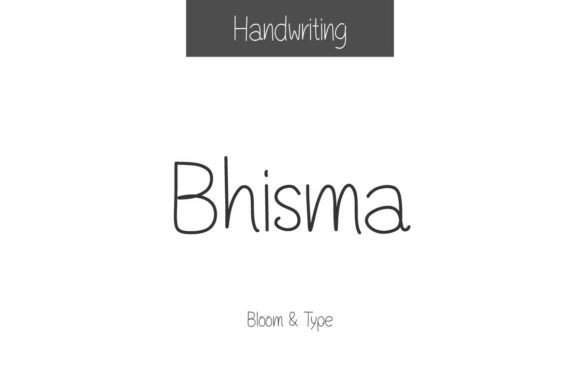
Bhisma Font: A Minimal and Heartfelt Handwritten Font for Creative Projects
Bhisma Font is a beautiful, handmade typeface that embodies simplicity, warmth, and personality. Its unique blend of elegance and relaxation makes it perfect for creative projects that require a touch of sincerity and calmness. In this article, we’ll explore the features and benefits of Bhisma Font, and how it can elevate your design work.
What is Bhisma Font?
Bhisma Font is a minimal and heartfelt handwritten font that boasts a gentle, handmade touch. Its organic and natural flow makes it feel both elegant and relaxed, perfect for designs that require a personal touch. The font’s thin and slightly irregular strokes give it a unique charm, setting it apart from other typefaces.
Key Features of Bhisma Font
- Handwritten with love: Bhisma Font is crafted with care, offering a genuine, handmade feel that’s perfect for designs that require a personal touch.
- Multilingual support: Bhisma Font includes support for Spanish, French, German, Portuguese, and Italian, making it a versatile choice for designers worldwide.
- Thin and irregular strokes: The font’s unique strokes give it a distinctive charm, ideal for creative projects that require a touch of elegance and relaxation.
- Elegant and relaxed: Bhisma Font’s organic flow makes it perfect for designs that require a balance of sophistication and calmness.
Perfect for Creative Projects
Bhisma Font is suitable for a wide range of creative projects, including:
- Branding & Logo Design: Bhisma Font’s unique charm makes it perfect for logos and branding projects that require a touch of personality.
- Inspirational Quotes: The font’s elegant and relaxed flow makes it ideal for inspirational quotes, posters, and flyers.
- Social Media Posts: Bhisma Font’s handmade touch makes it perfect for social media posts that require a personal and authentic feel.
- Posters & Flyers: The font’s thin and irregular strokes make it suitable for posters and flyers that require a touch of elegance and sophistication.
- Invitations & Greeting Cards: Bhisma Font’s organic flow makes it perfect for invitations and greeting cards that require a personal touch.
- Journals, Stationery & Packaging Design: The font’s unique charm makes it suitable for journals, stationery, and packaging design projects that require a touch of authenticity and modern softness.
Why Choose Bhisma Font?
Bhisma Font offers a unique combination of simplicity, warmth, and personality, making it a great choice for designers who want to add a personal touch to their work. Here are some reasons why you should choose Bhisma Font:
- Unique and handmade: Bhisma Font’s handmade touch sets it apart from other typefaces, offering a genuine and authentic feel.
- Multilingual support: The font’s multilingual support makes it a versatile choice for designers worldwide.
- Elegant and relaxed: Bhisma Font’s organic flow makes it perfect for designs that require a balance of sophistication and calmness.
- Perfect for creative projects: Bhisma Font is suitable for a wide range of creative projects, from branding and logo design to social media posts and packaging design.
Tips for Using Bhisma Font
Here are some tips for using Bhisma Font in your design projects:
- Pair with other fonts: Bhisma Font can be paired with other fonts to create a unique and interesting contrast.
- Use for headings and titles: The font’s elegant and relaxed flow makes it perfect for headings and titles.
- Add a personal touch: Bhisma Font’s handmade touch makes it perfect for designs that require a personal and authentic feel.
- Experiment with colors: The font’s unique charm makes it suitable for a wide range of colors and design schemes.
Bhisma Font is a beautiful, handmade typeface that offers a unique combination of simplicity, warmth, and personality. Its elegant and relaxed flow makes it perfect for creative projects that require a touch of sincerity and calmness. With its multilingual support and versatility, Bhisma Font is a great choice for designers worldwide.